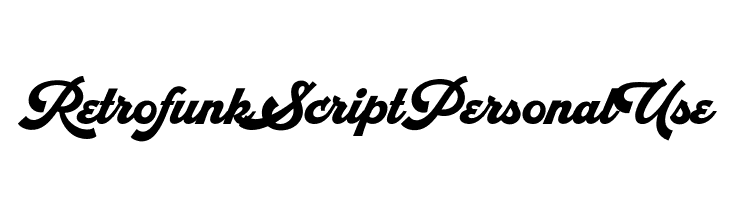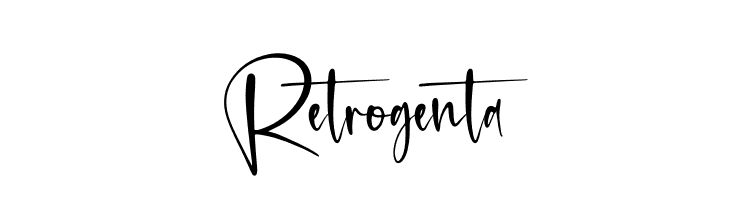
A bold, retro-inspired font with a narrow, blocky design and rounded edges.
A bold, wide, retro-style font with rounded edges and smooth curves.
A bold, retro-inspired font with chunky, rounded characters.
A quirky, handwritten font with tall, narrow letters and playful strokes.
A bold, flowing script font with retro charm and elegance.
A bold, shadowed script font with a retro flair.
A bold, shadowed, and extruded font with a retro, playful style.
A bold, textured font with a playful dotted pattern, ideal for decorative use.
A bold, retro script font with elegant curves and dramatic flourishes.